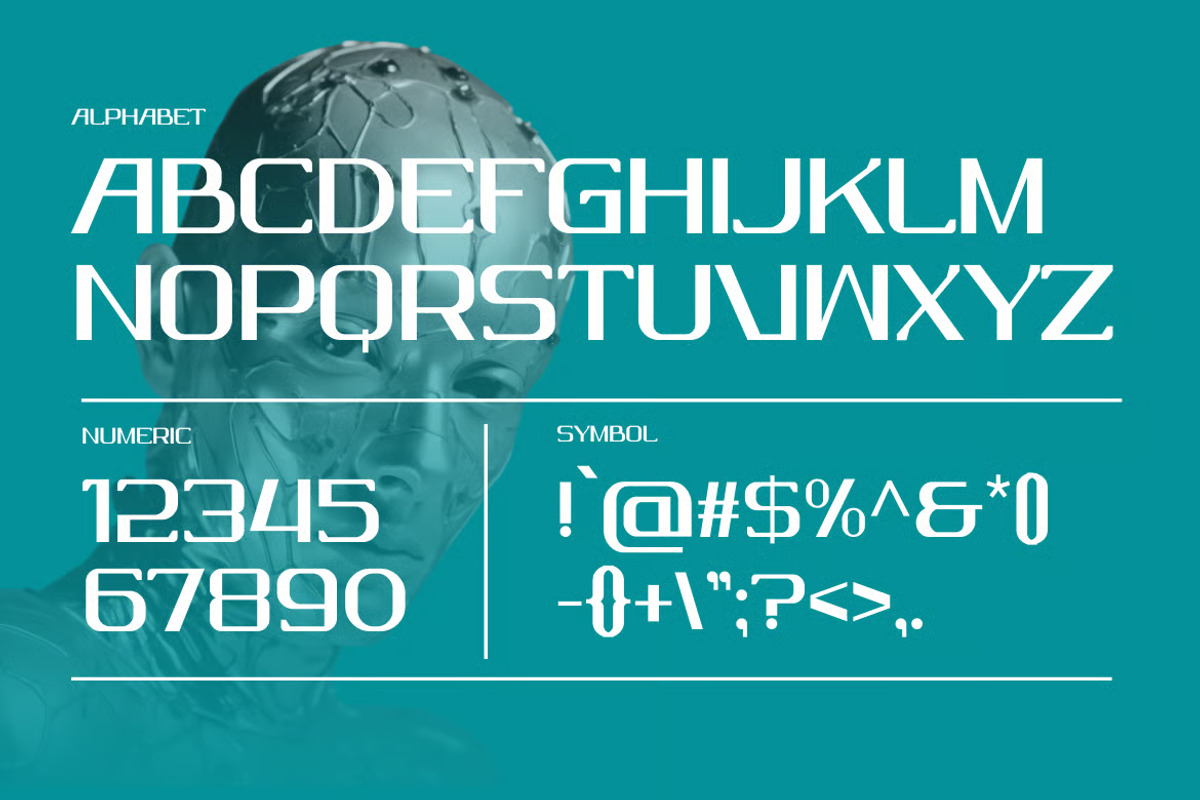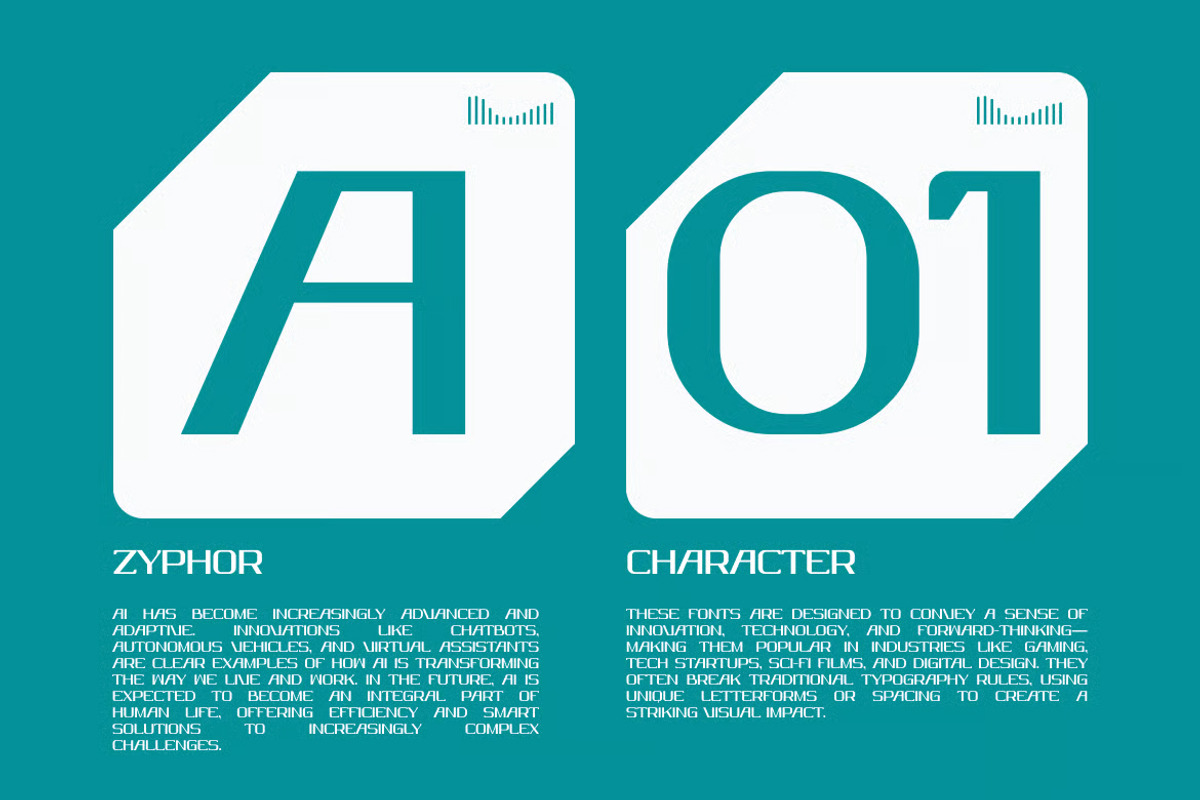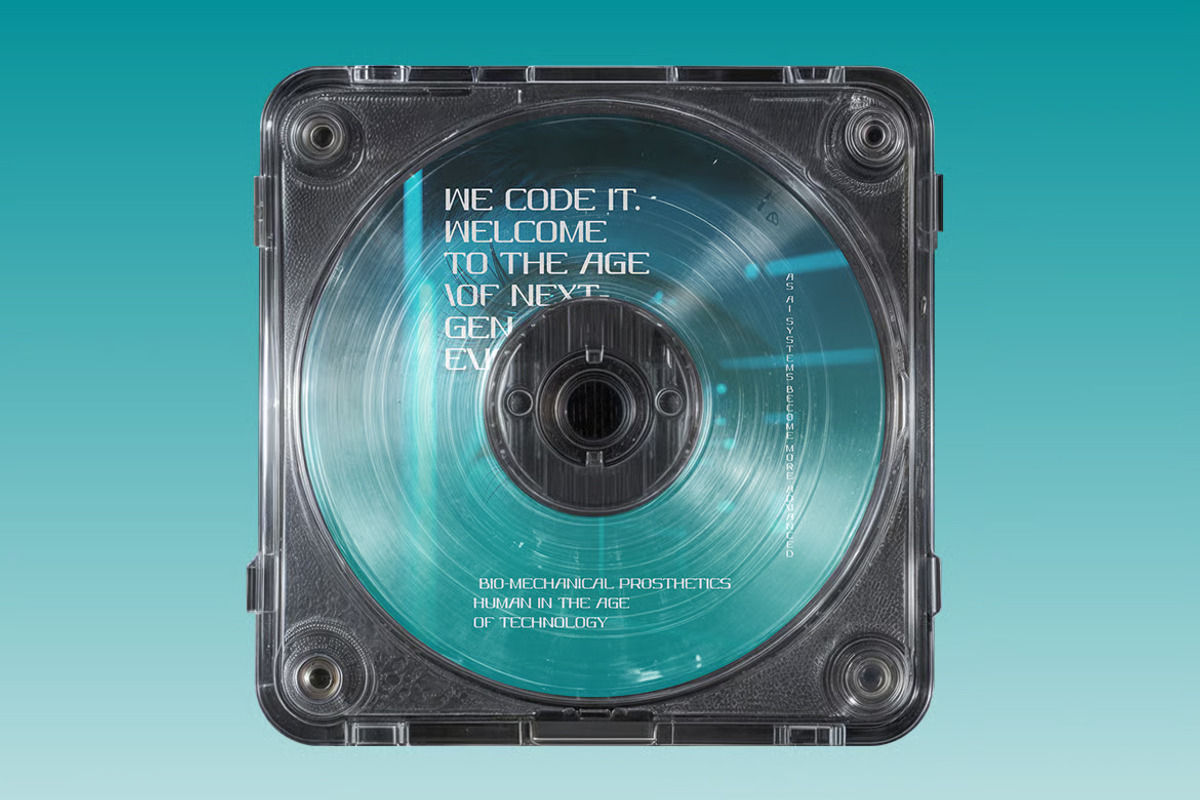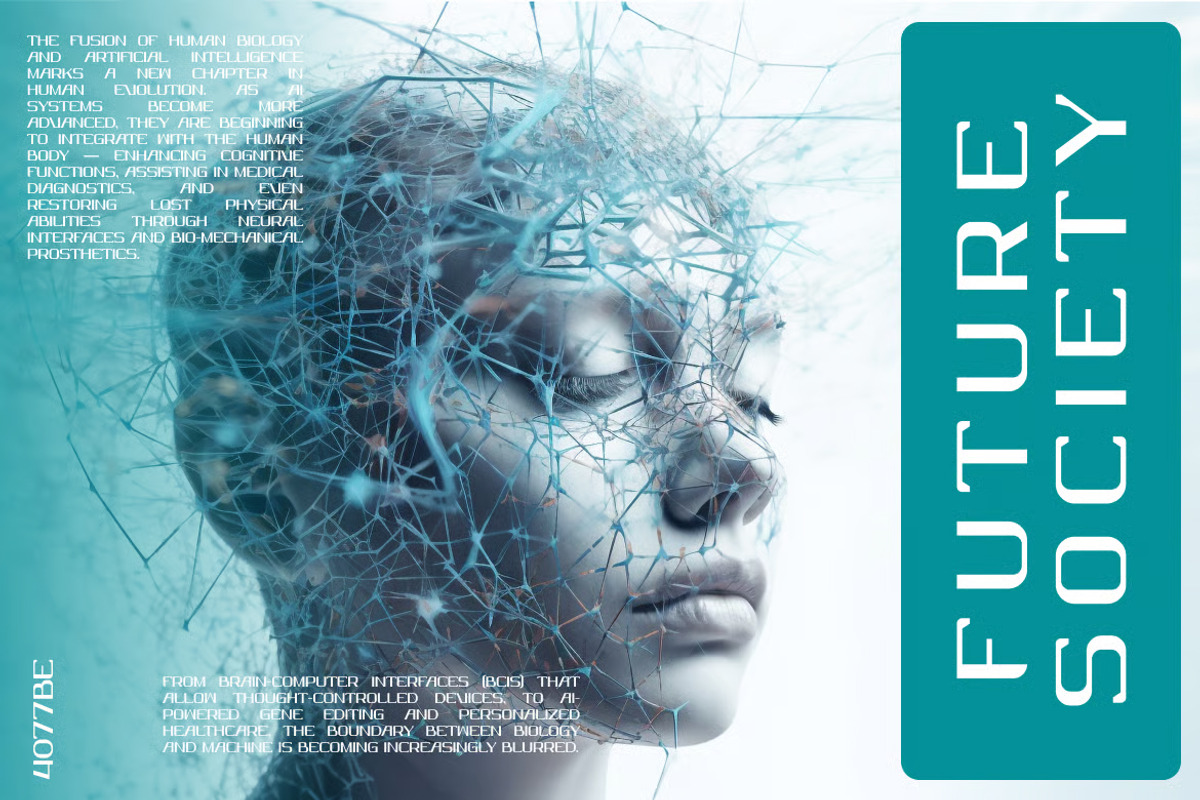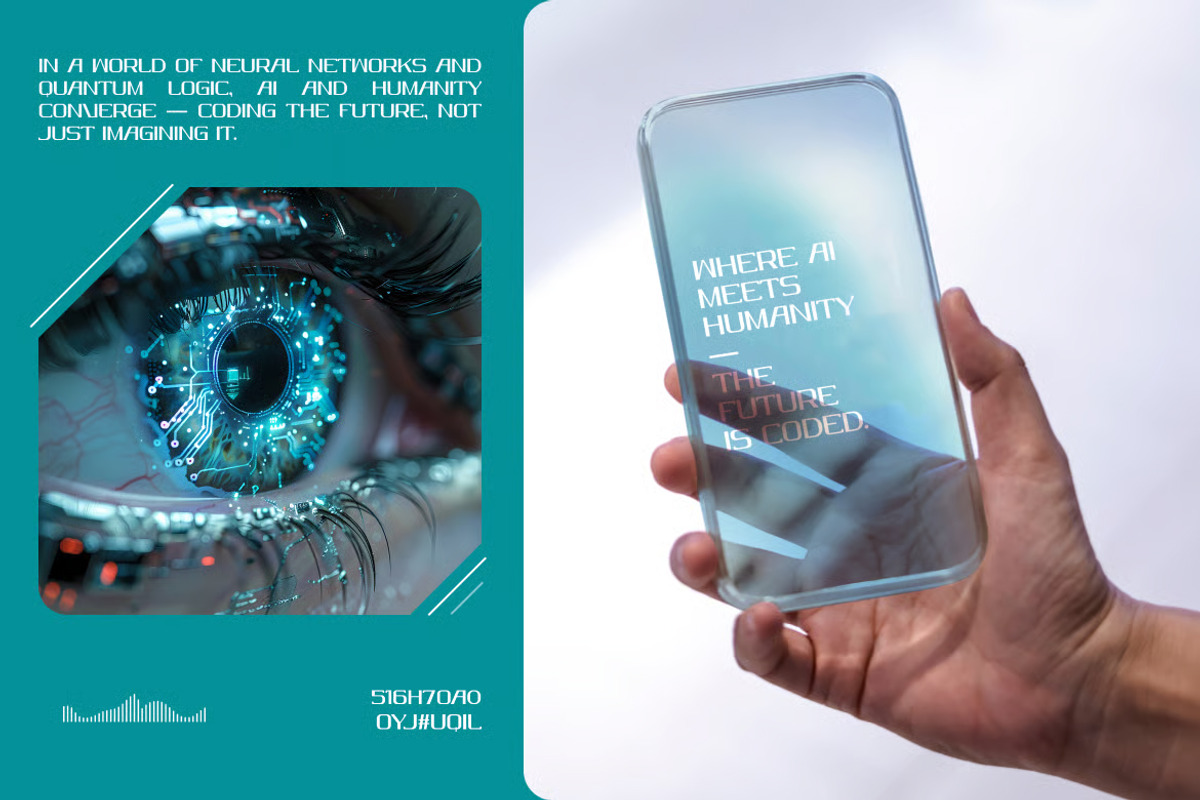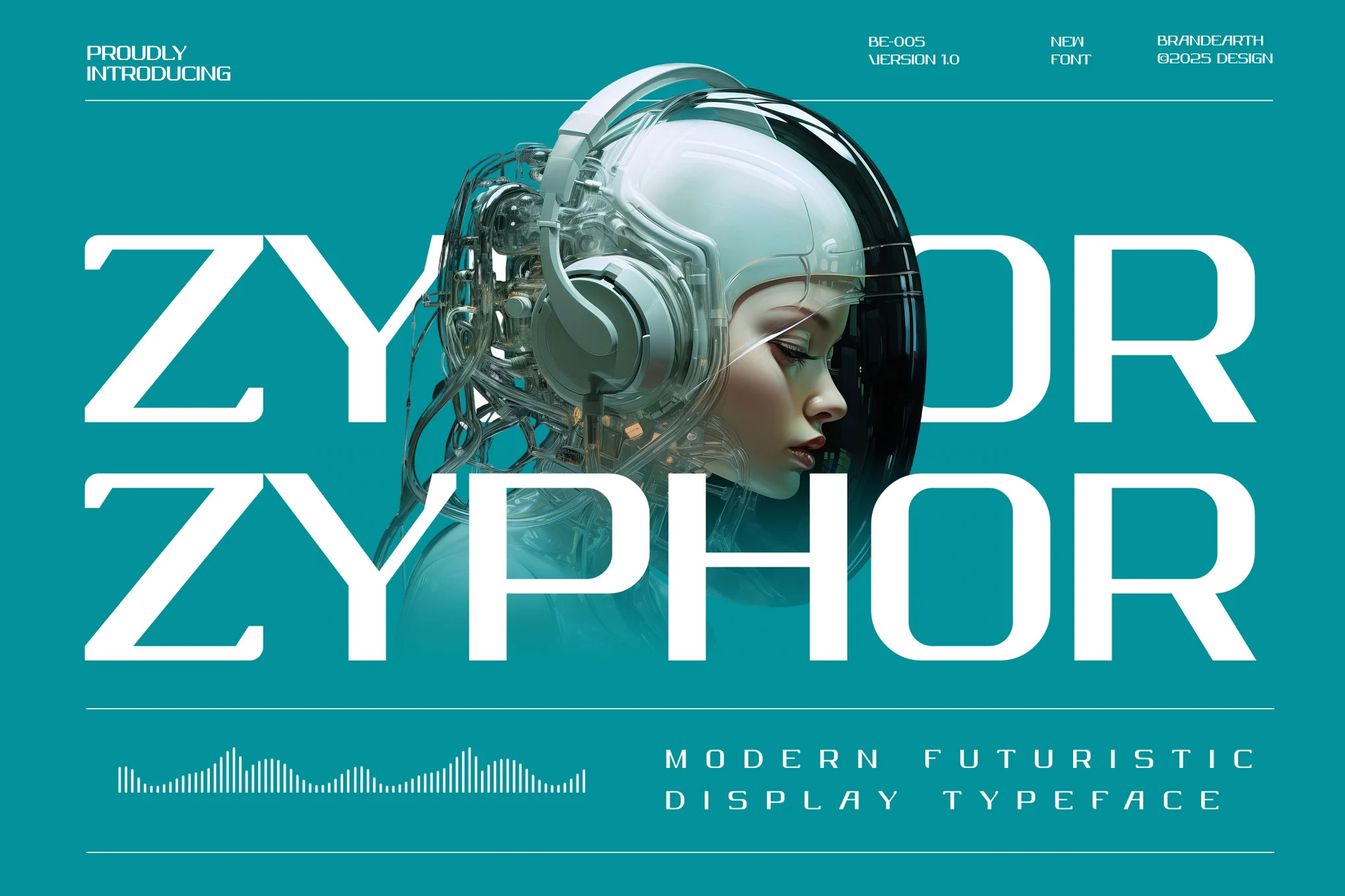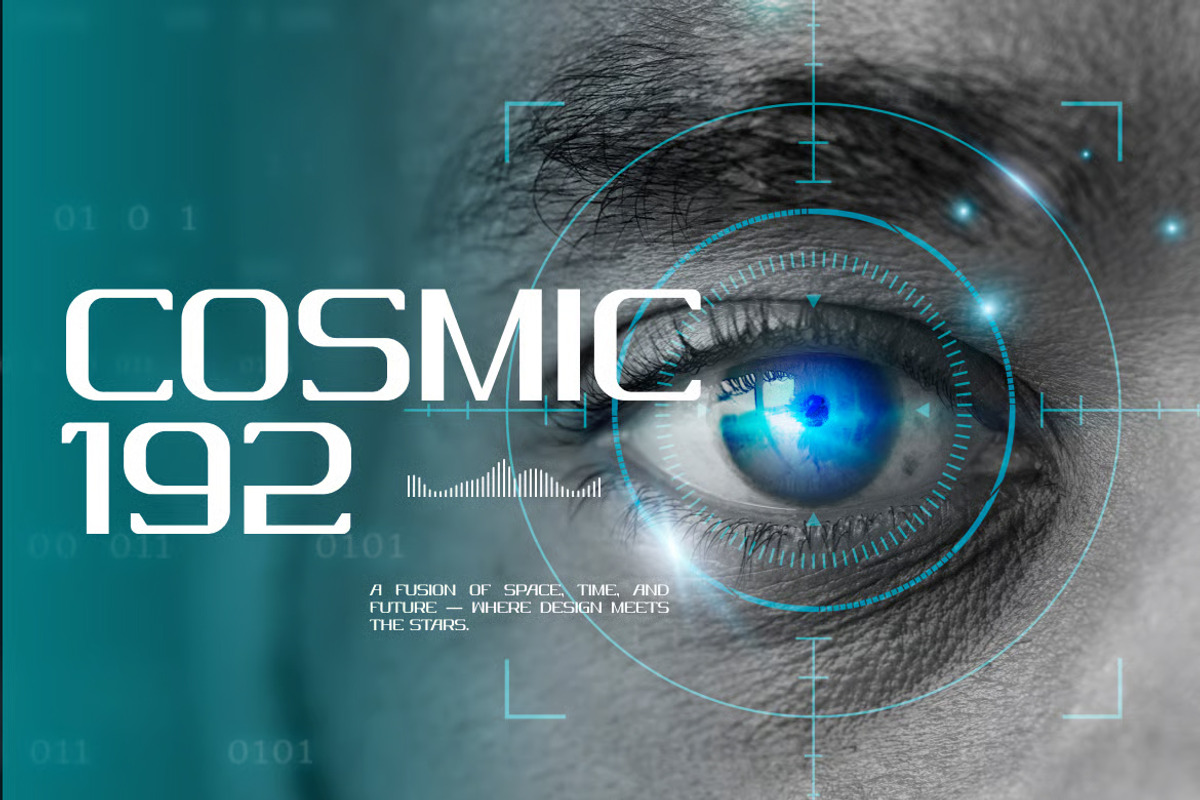
Zyphor – Modern Futuristic Font
Zyphor is a bold, modern futuristic display font designed for high-impact visual storytelling. Built for the digital era of technology and sci-fi branding, it captures a sense of precision, power, and advanced innovation in every letterform. Its angular cuts, techno-styled terminals, and aerodynamic flow make it a great choice for headlines, tech branding, artificial intelligence projects, and modern digital interfaces.
The letterforms in Zyphor are crafted with sharp, condensed strokes and a commanding rhythm that gives the typeface a sleek and cutting-edge presence. It features a visionary tech-inspired edge that is perfect for sci-fi posters, space-themed visuals, robotics interfaces, and gaming dashboards.
With its sleek and commanding presence, Zyphor bridges the gap between cyberpunk-inspired design and modern digital sophistication. It provides strong visual impact while remaining versatile, making it ideal for AI-driven UI/UX design, technology branding, and high-tech environments that demand a visionary appearance.